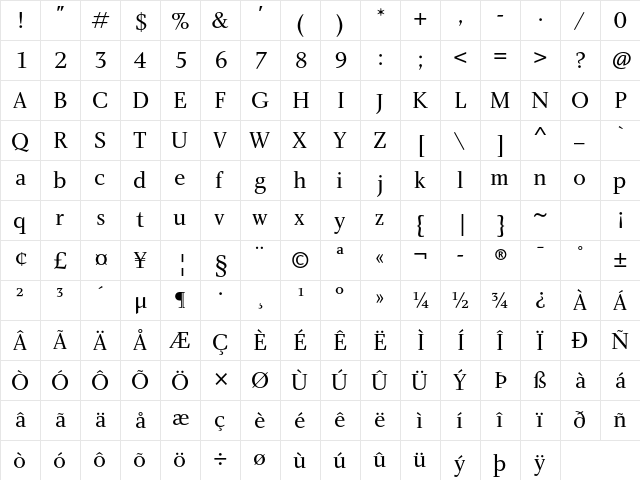
Charlotte Std Book Font Preview
Charlotte Std Book
| Designer | Michael Gills |
Design Context for Charlotte Std Typeface
Charlotte Std is a composed and adaptable typeface that performs quietly and consistently across a wide range of design contexts.